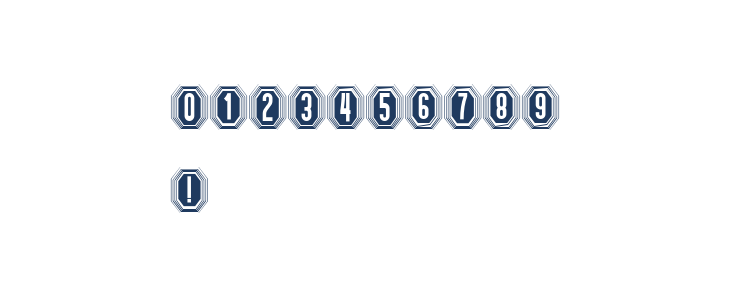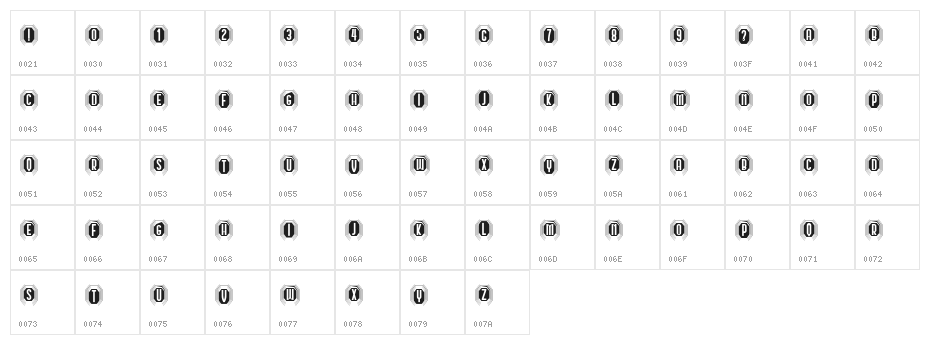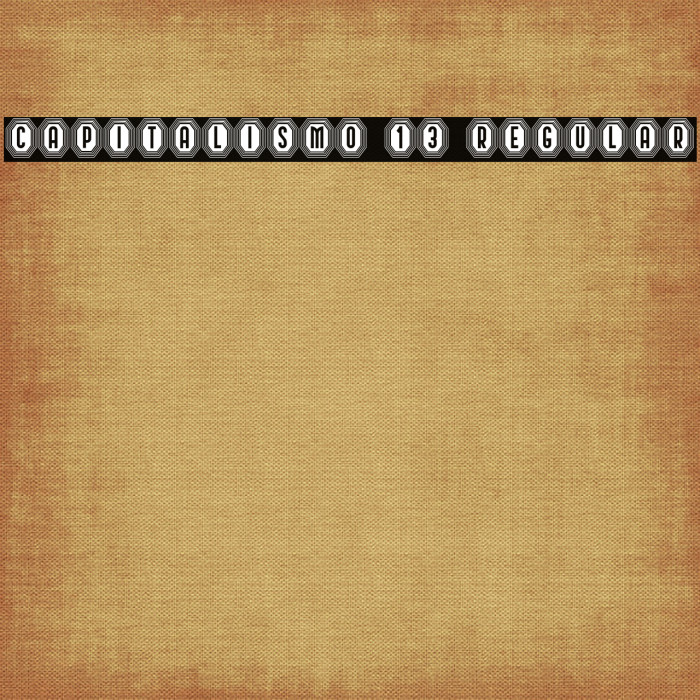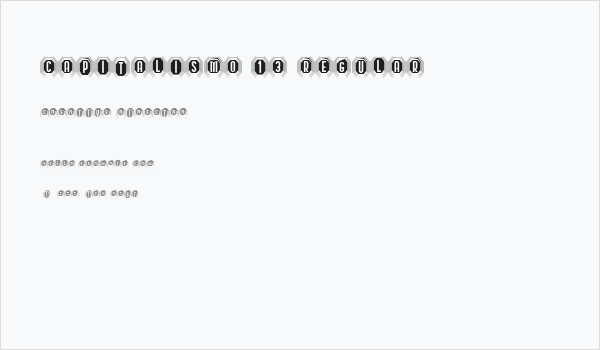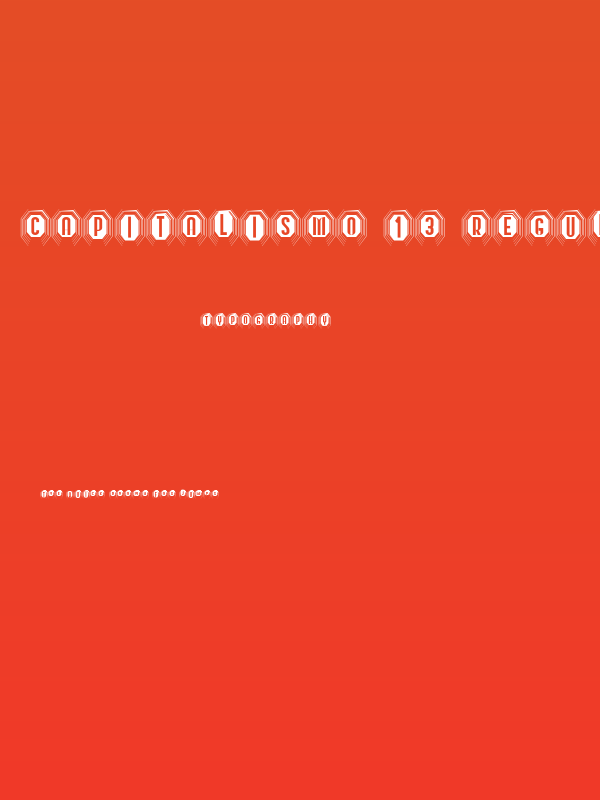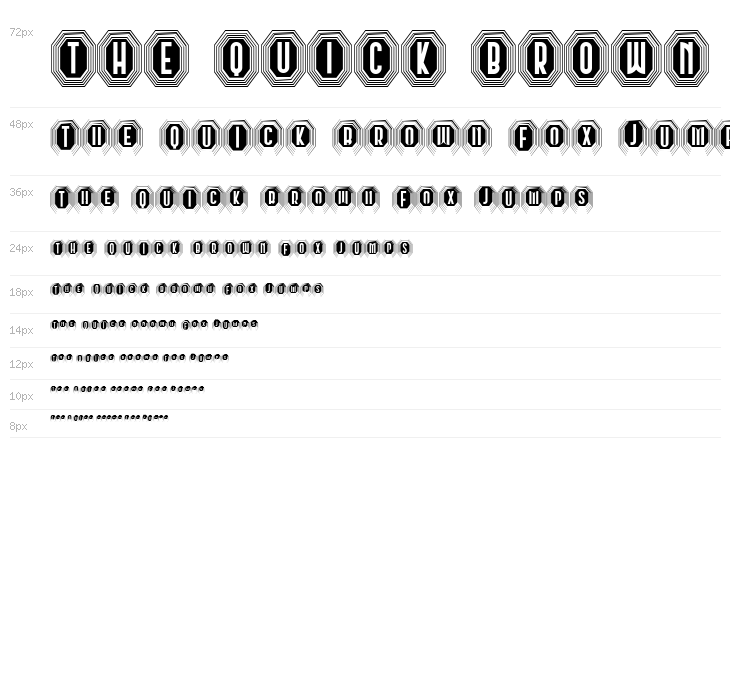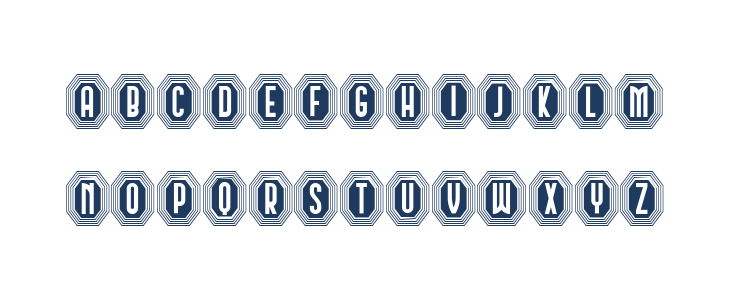
Capitalismo 13 Regular Font
Capitalismo 13 Regular Description
This font features a bold, decorative style with each character enclosed within a multi-layered octagonal border. The letters and numbers are centered within these borders, creating a striking and unique appearance. The font's geometric design is reminiscent of vintage signage, with a strong emphasis on symmetry and structure. The boldness of the characters ensures high visibility, making it ideal for attention-grabbing designs. The consistent use of the octagonal frame around each character adds a cohesive and uniform look, while the inner strokes of the letters are thick and solid, providing a strong contrast against the intricate border. This font is perfect for projects that require a distinctive and memorable visual impact.
| Proposed Projects | Suitable for posters, logos, packaging, and any design needing a bold, vintage flair. |